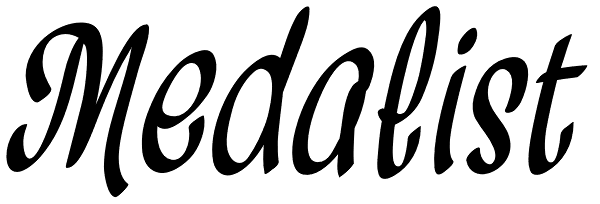
Medalist
Flat pen script font designed for use on posters, titles, book covers, greeting cards, packaging, invitations, magazine articles and advertising.
Medalist Expanded